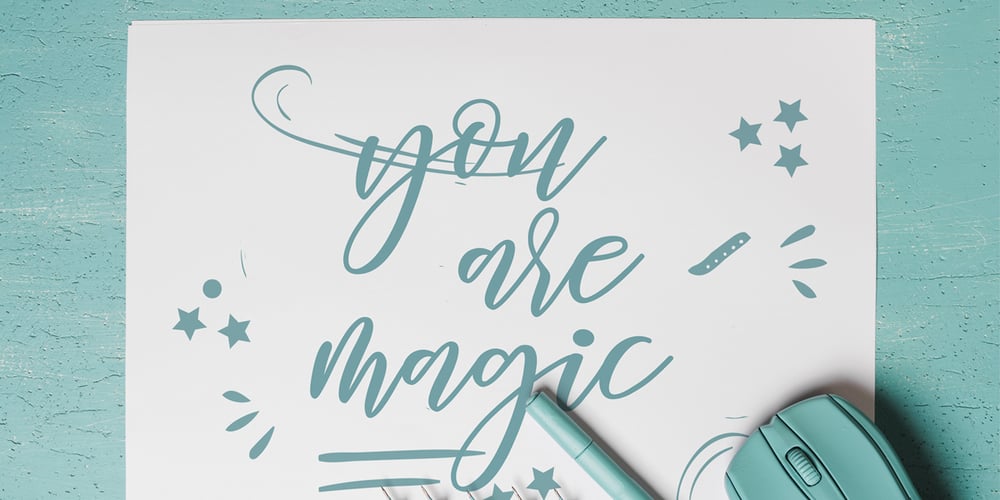
Diary Amily Font Family was designed by Muhammad Rizal and published by MrLetters. Diary Amily contains 1 styles and family package options. I would like to present a font that I named after “Amily’s Diary”. This font was inspired by the handwriting in a beautiful woman’s diary. So don’t hesitate to use this font for a loving design! Diary Amily Script is perfect for branding, wedding invitations, magazines, mugs, business cards, quotes, posters, and many more that you can use on your big project will be very beautiful. Diary Amily Script is equipped with the OpenType features and has many glyphs. With so many glyphs, you will be able to choose letters to your liking. There are lots of variations and choices for each letter, so you can customize your design choices and also support other languages. This font is very suitable for use with programs that support OpenType features such as Adobe Photoshop Cs / Adobe Photoshop CC, Adobe Illustrator CS / Adobe Illustrator CC, Adobe Indesign, and Corel Draw and many more programs that support OpenType. If you have any questions, don’t hesitate to contact me via email: hello.mrletters@gmail.com